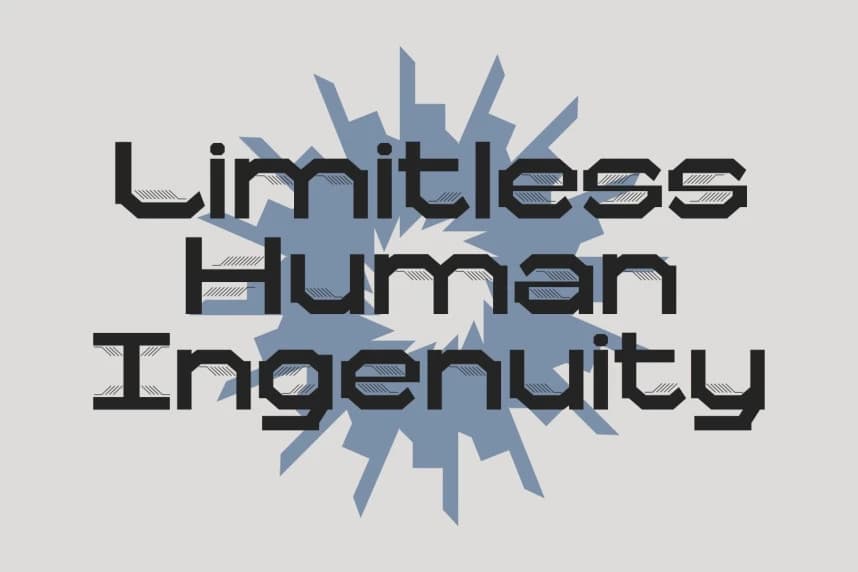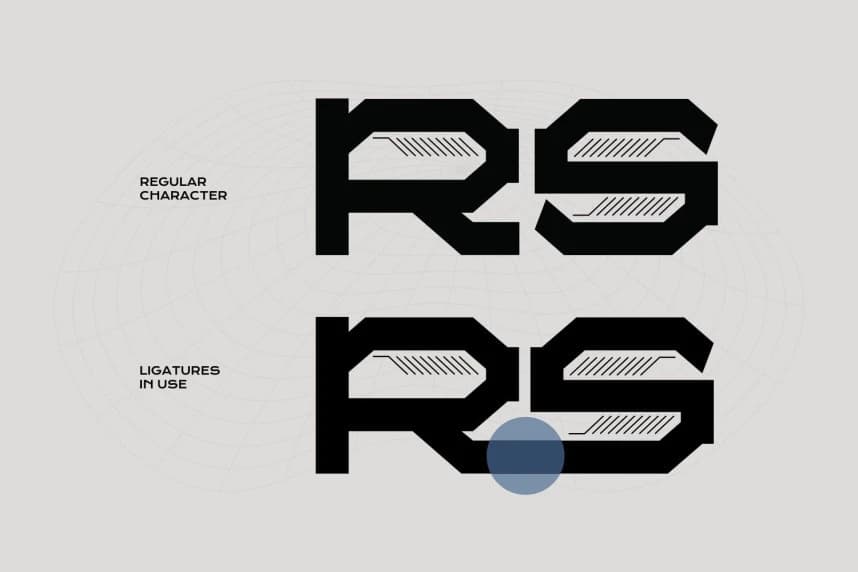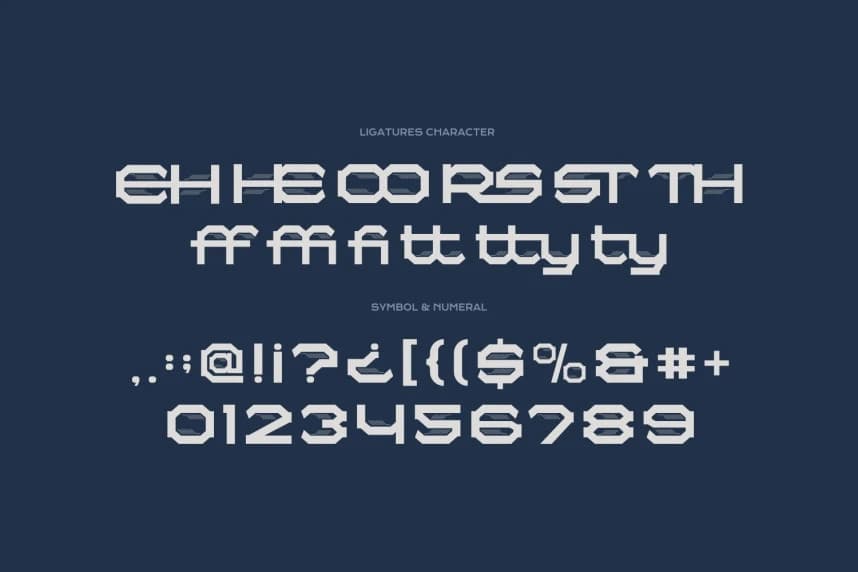
Elons Font
Elons Font is a futuristic display font inspired by science fiction and cybernetic aesthetics. Featuring bold geometric letterforms, sharp chamfered edges, and unique inline details, this typeface delivers a strong mechanical and high-tech appearance.
Elons